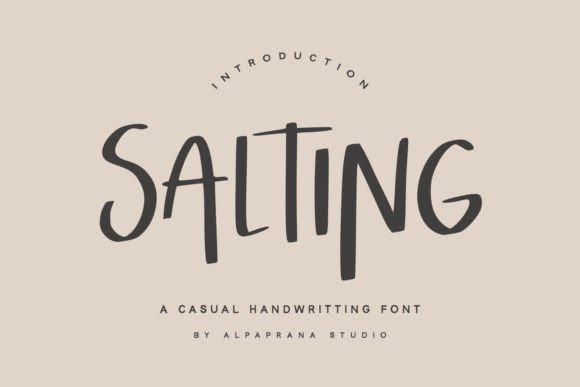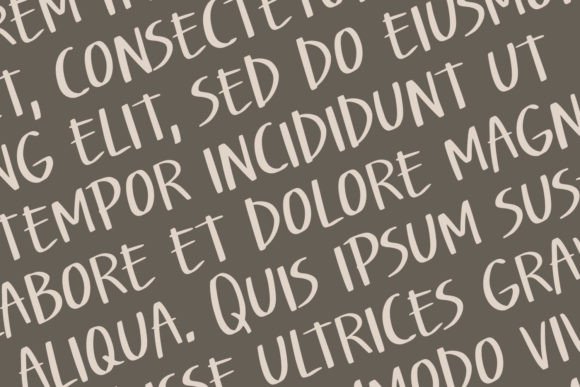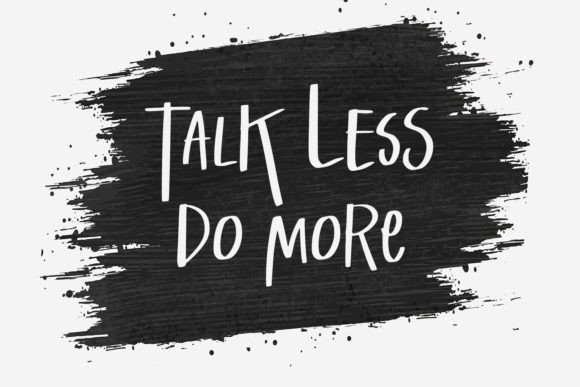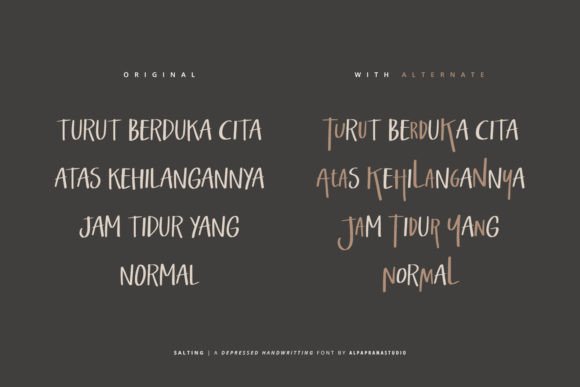
Salting Font: Modern Handwritten Font for Branding & Logo Design
About the Salting Font
Explore the possibilities with Salting Font, a font that offers both beauty and functionality. Salting is a handwritten display font with natural and modern feels. It will be perfectly used for Branding, Logo Design, Lettering, Logotype, Clothing, Poster, magazine, packaging, posters, shopping bags, t-shirts, book covers, photography, special events, and other design projects.
Salting Font Usage Examples
Salting Font Example